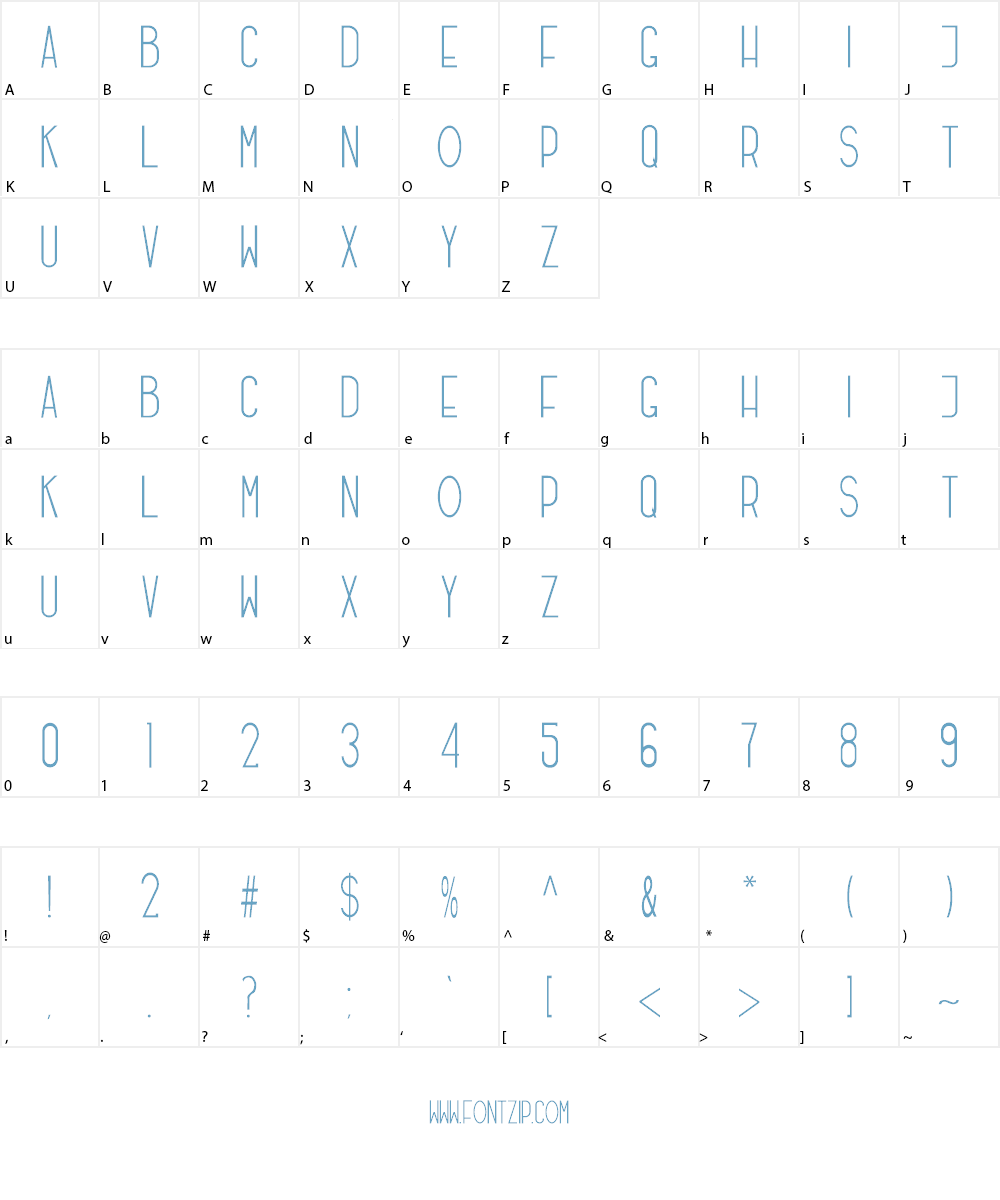
Freeds is modern typeface that boasts clean lines and sharp edges. An extremely versatile font, Freeds is perfect for logos, weddings, invitations, quotes, advertisements, print, magazines, and more!